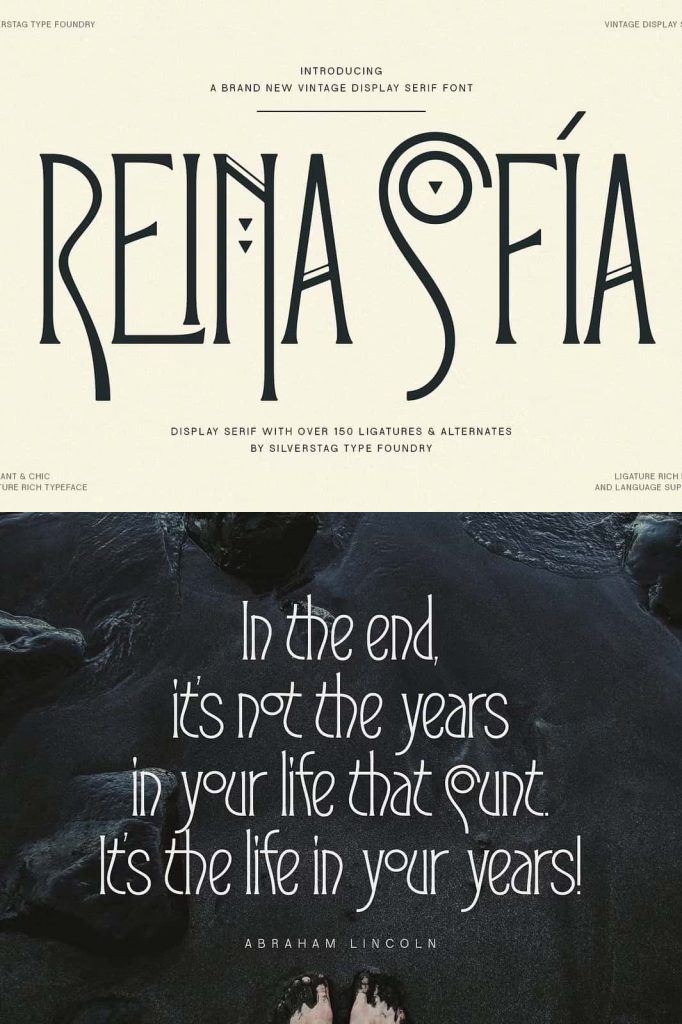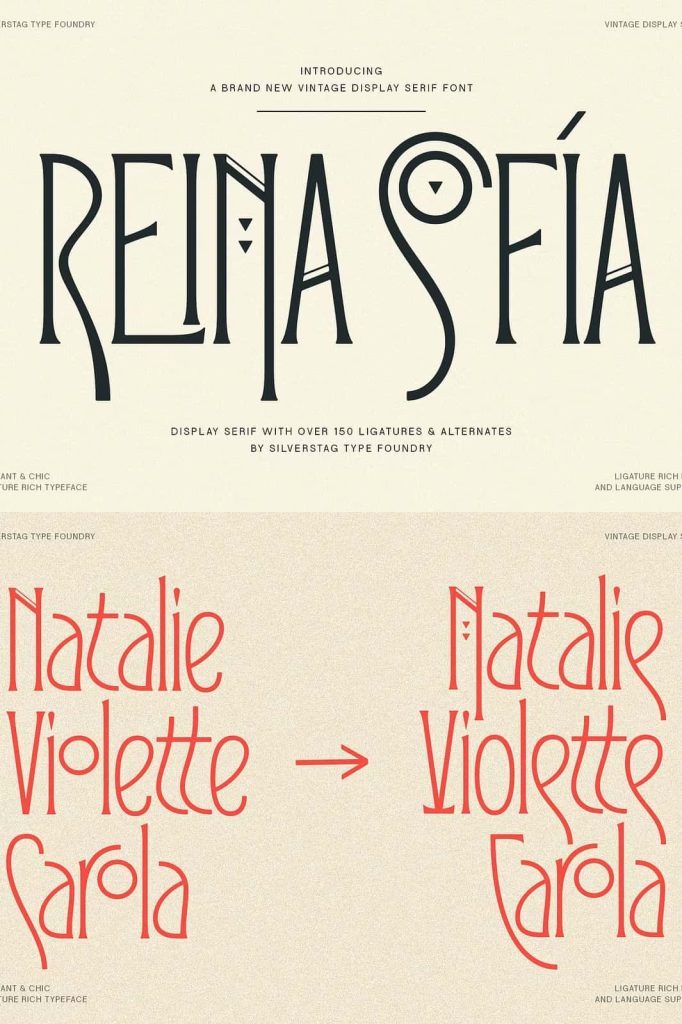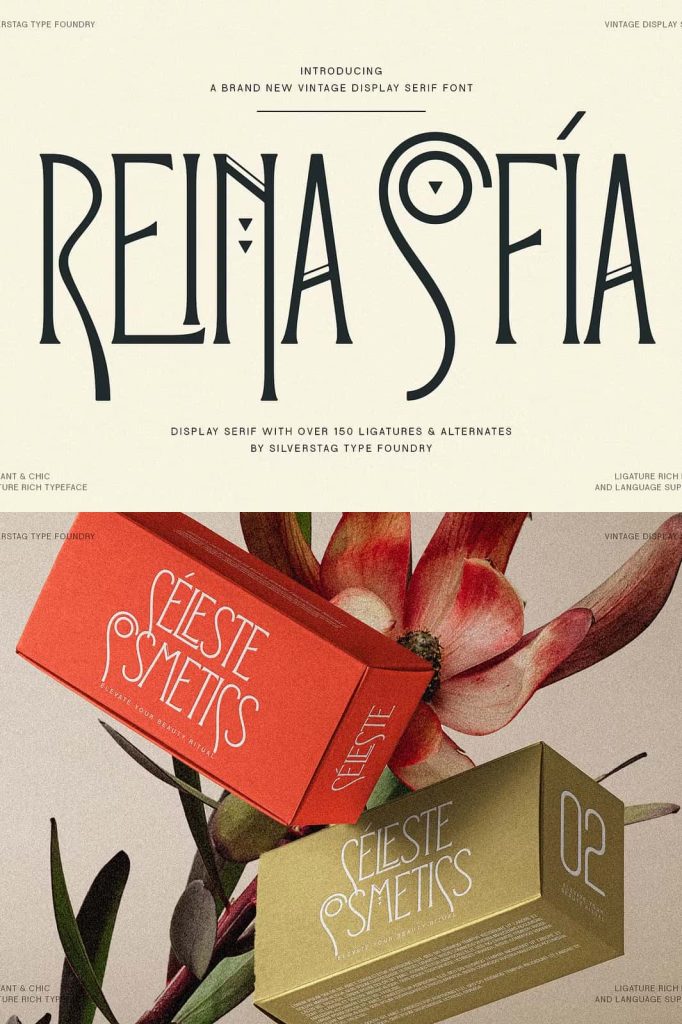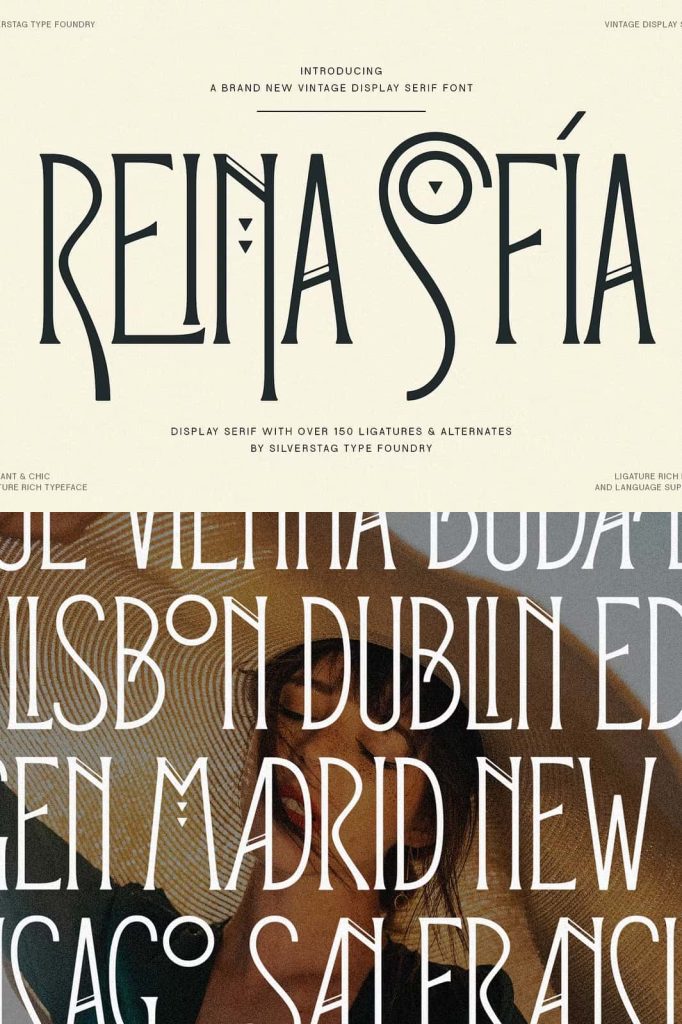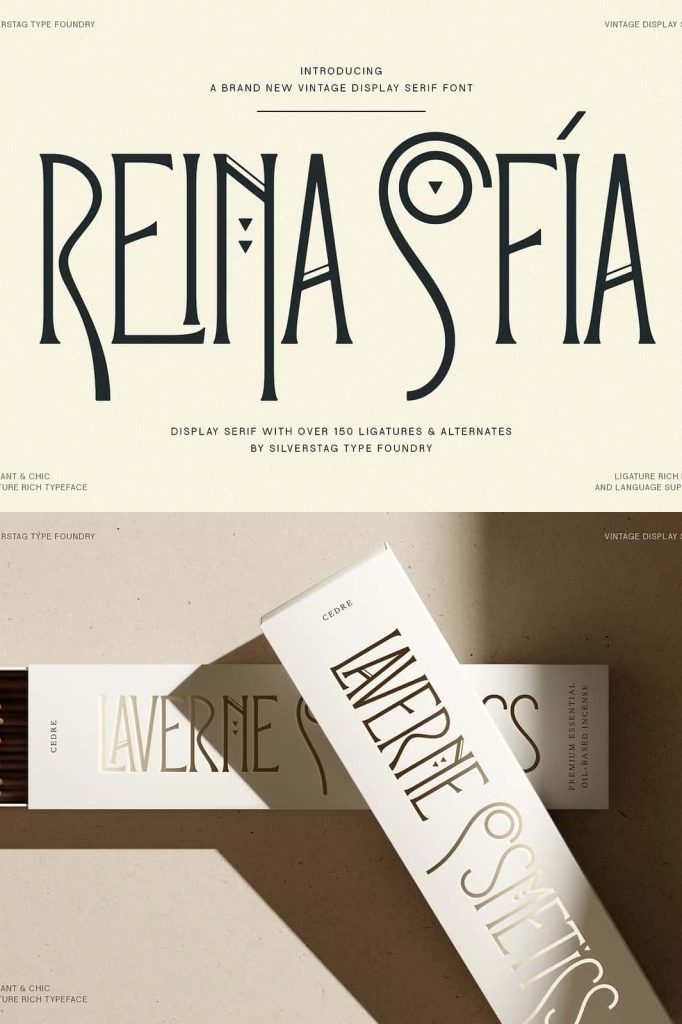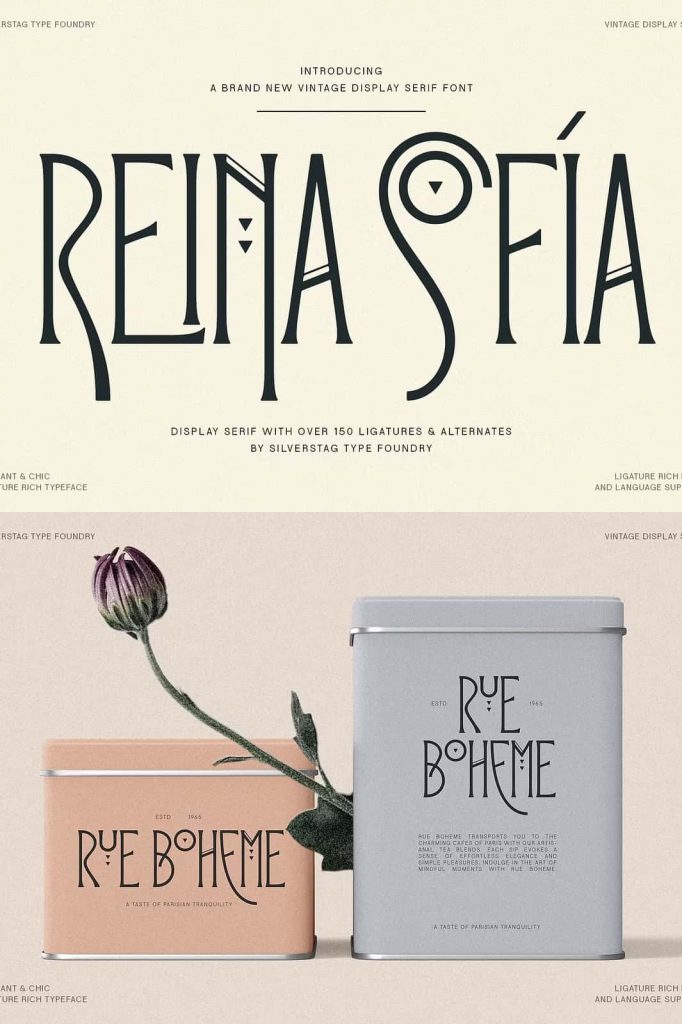
Immerse yourself in the elegance and artistry of Reina Sofía, a vintage-inspired typeface that pays homage to the grandeur of Madrid’s iconic Reina Sofía Museum. Drawing inspiration from the museum’s rich collection of Art Deco and Art Nouveau masterpieces, this font embodies a bygone era of sophistication and creative expression.